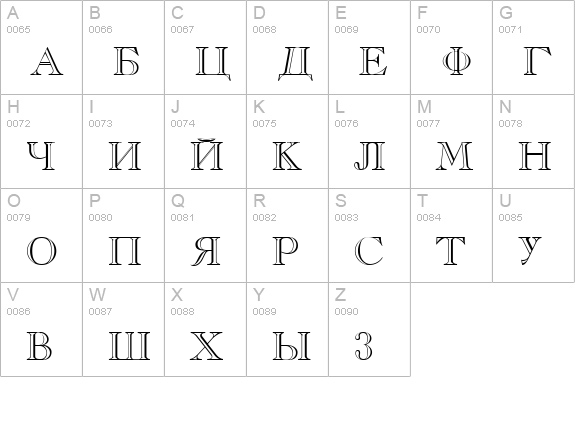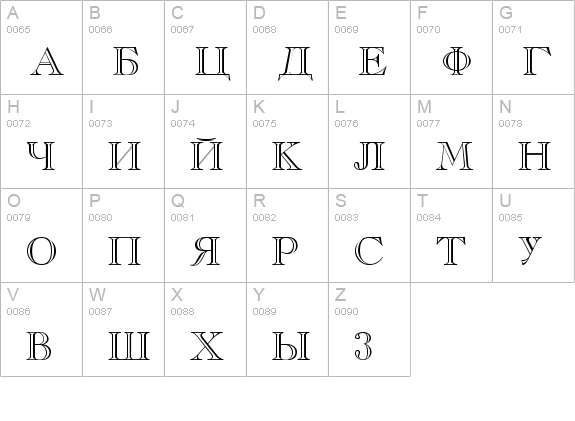
Russkij OtkrytyjDemo Font Details
Russkij OtkrytyjDemo font is a stunning display font that exudes elegance and sophistication. Its intricate details and unique design make it perfect for adding a touch of class to any project. This font is ideal for use in headings, logos, invitations, and more. What makes Russkij OtkrytyjDemo font even more appealing is that it is completely free to download. You can easily access this beautiful font at FontsMarket.com, where you can explore a wide range of high-quality fonts for all your design needs. Don't miss out on the opportunity to enhance your projects with the exquisite Russkij OtkrytyjDemo font, available for free download now!